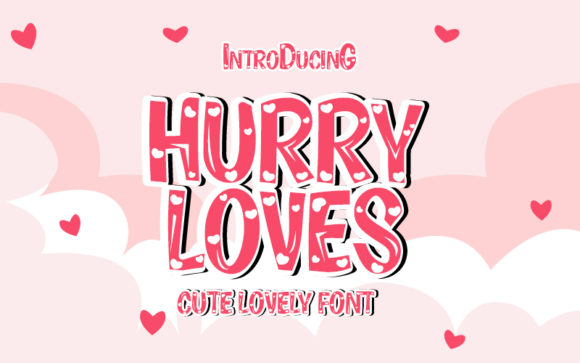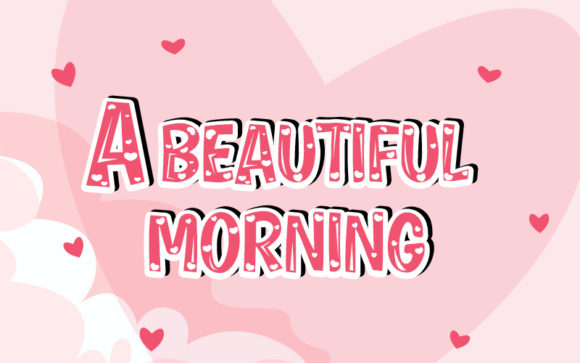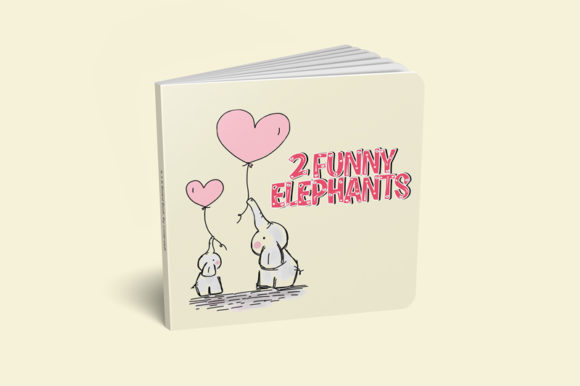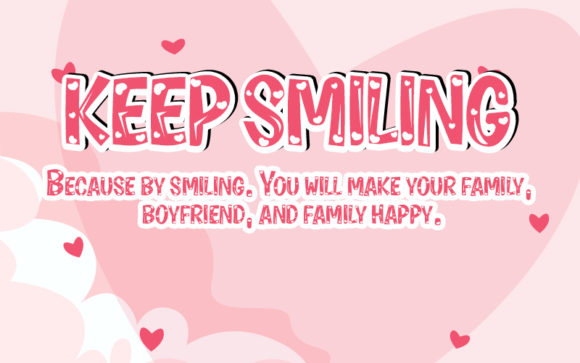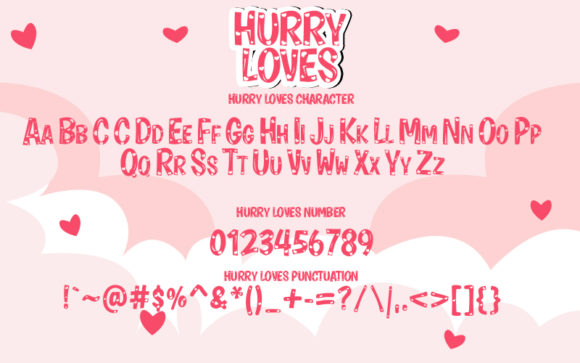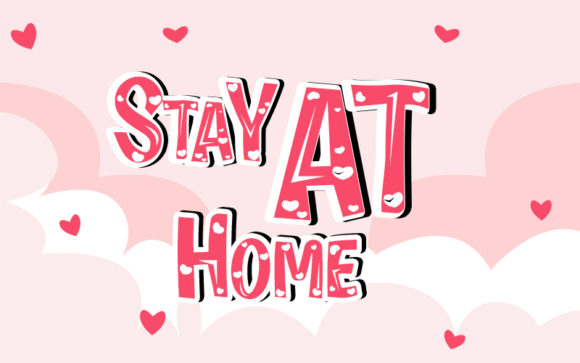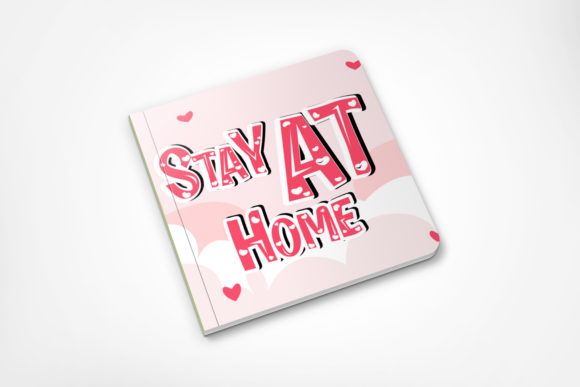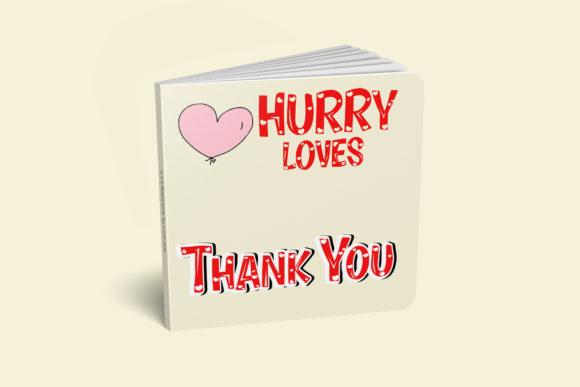
Hurry Loves Font
About Hurry Loves Font
Hurry Loves is a cute and casual handwritten font with an incredibly friendly feel. Whether you’re looking for fonts for Instagram or calligraphy scripts for DIY projects, this font will turn any creative idea into a true piece of art!